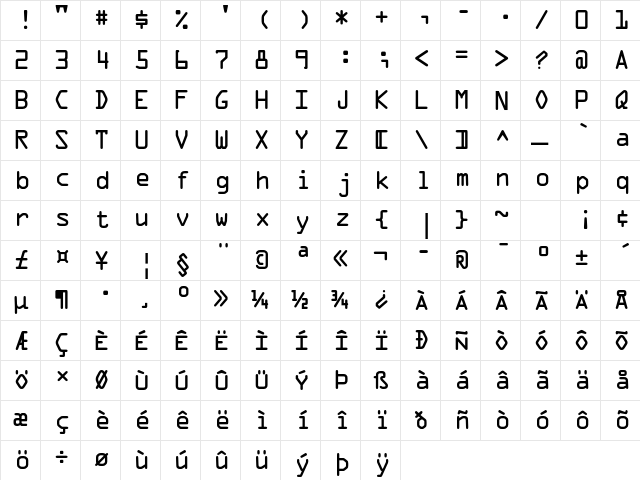
OCR A Std Regular
| Designer | American Type Founders staff and Adobe Type staff |
Design Context for OCR A Std Typeface
OCR A Std offers clean, dependable letterforms without strong stylistic allegiance, making it a practical choice for designers who need flexibility.
Pro Tip: Use OCR A Std in both headline and body roles to test its range before committing to a single application.